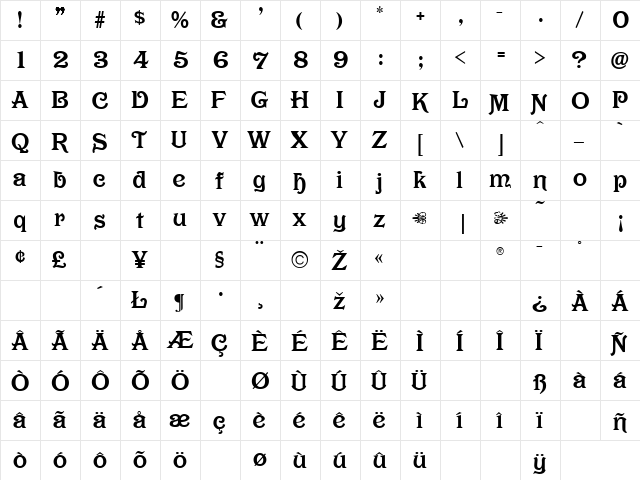
Olympian Regular
Design Context for Olympian Typeface
Olympian offers clean, dependable letterforms without strong stylistic allegiance, making it a practical choice for designers who need flexibility.